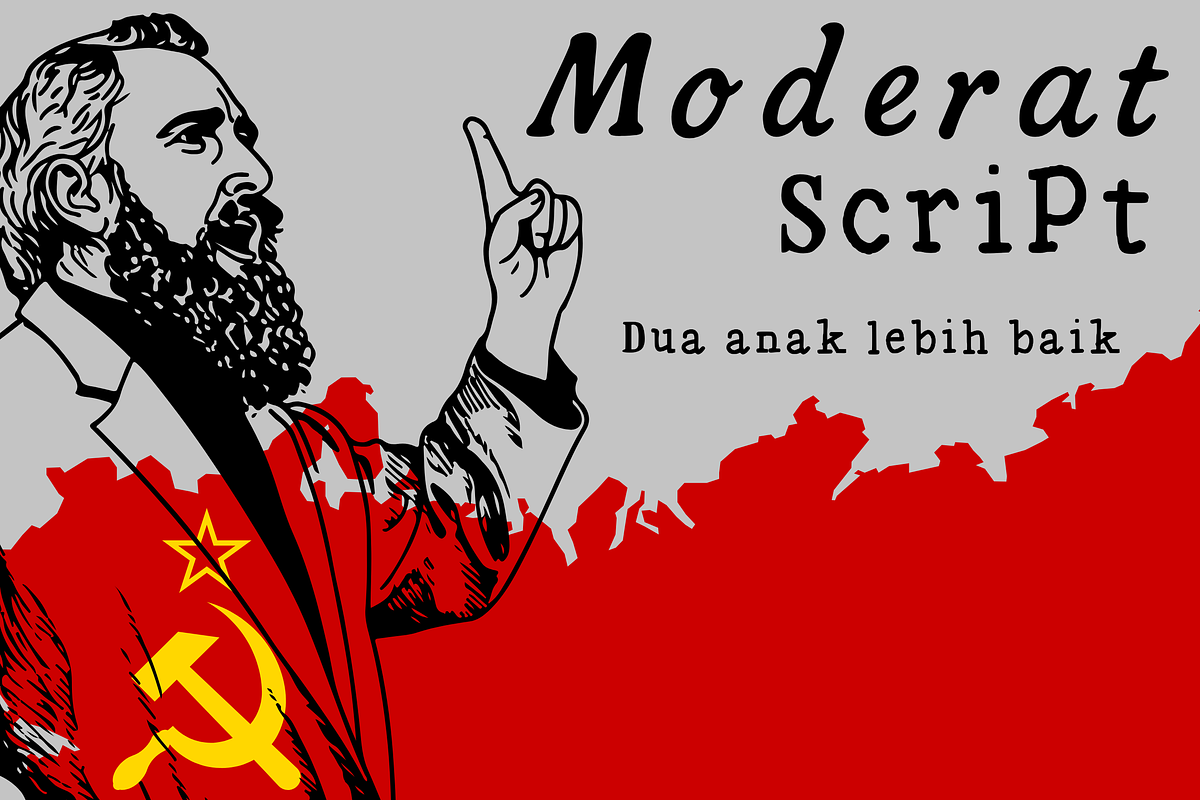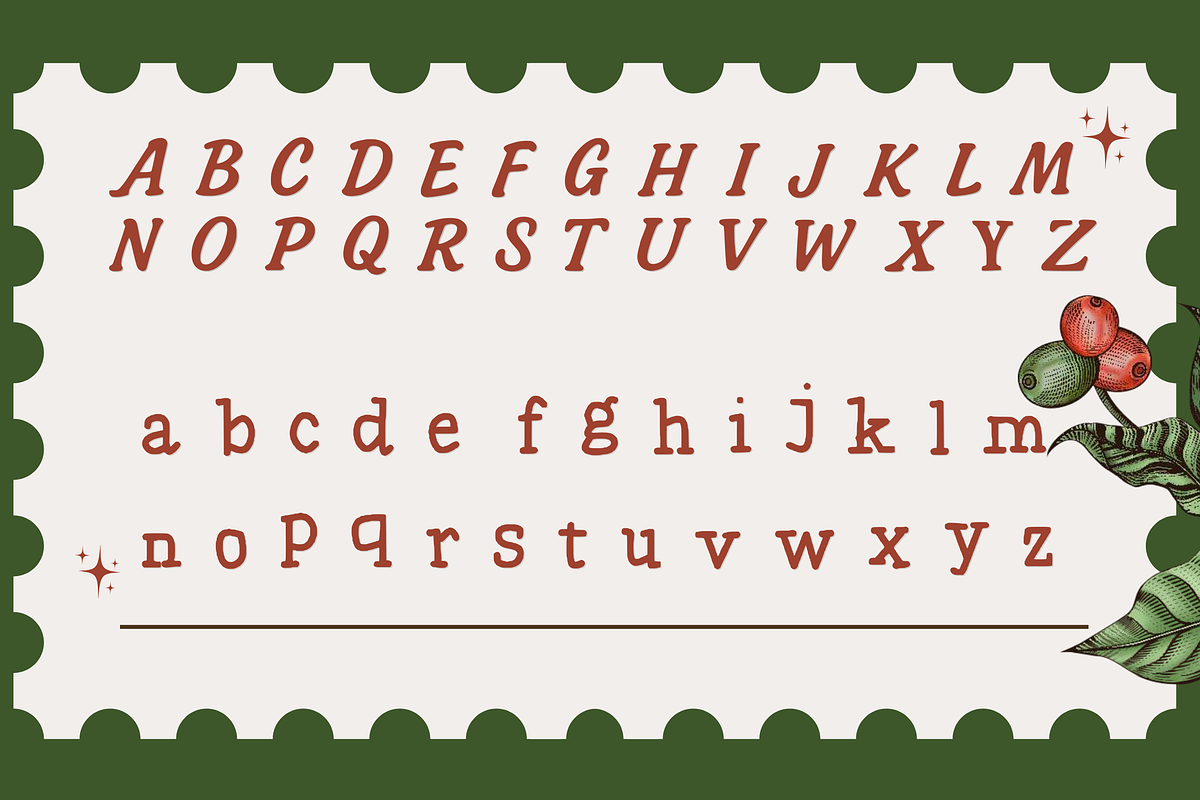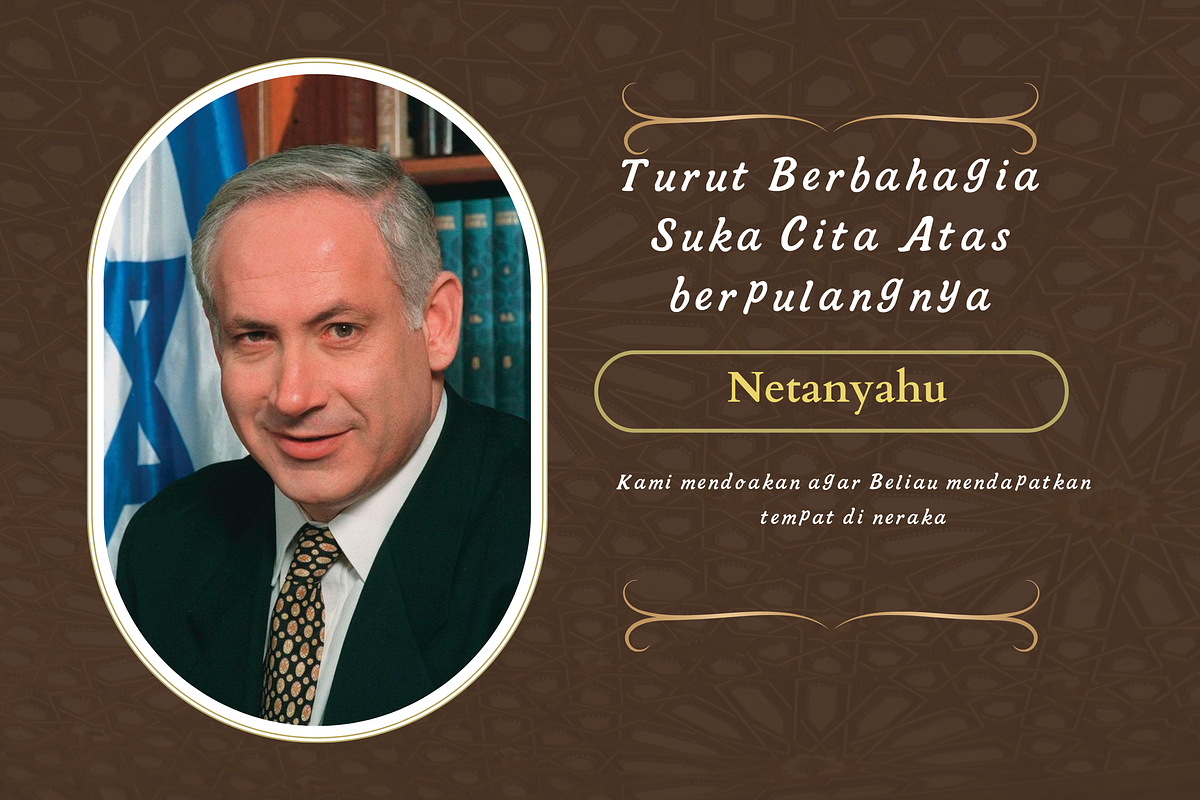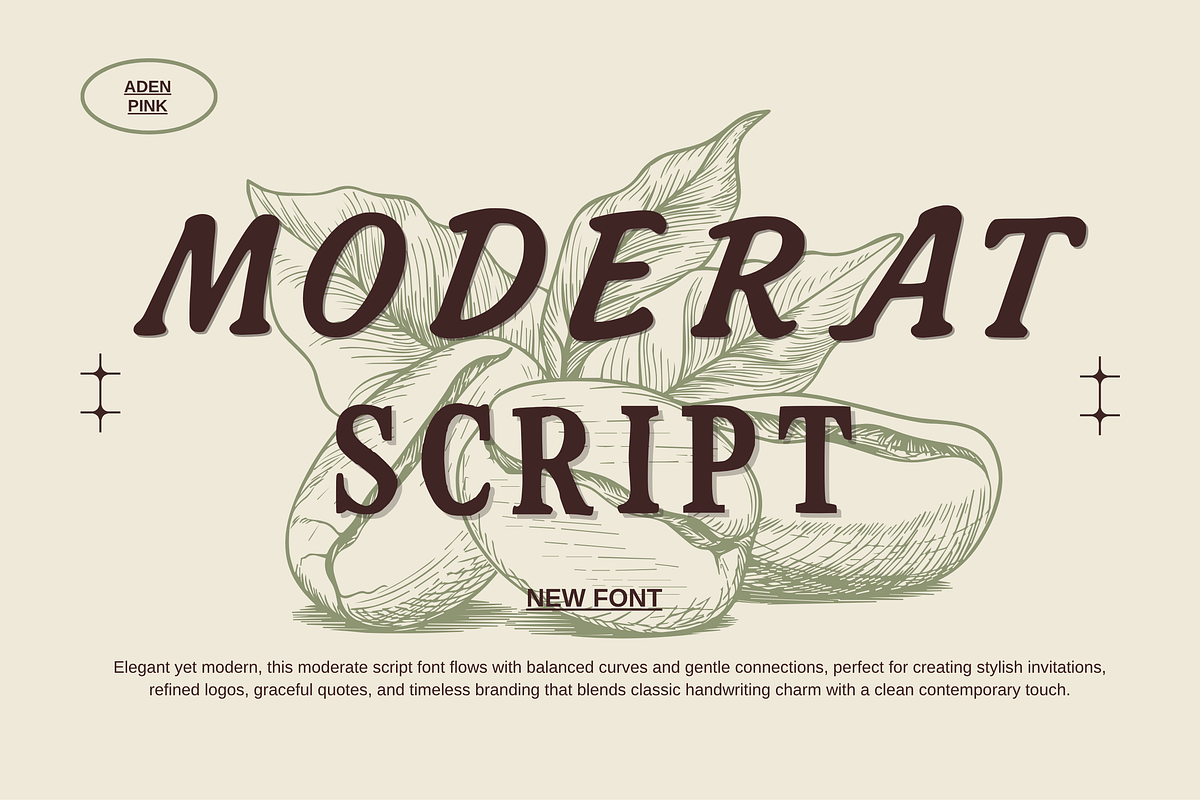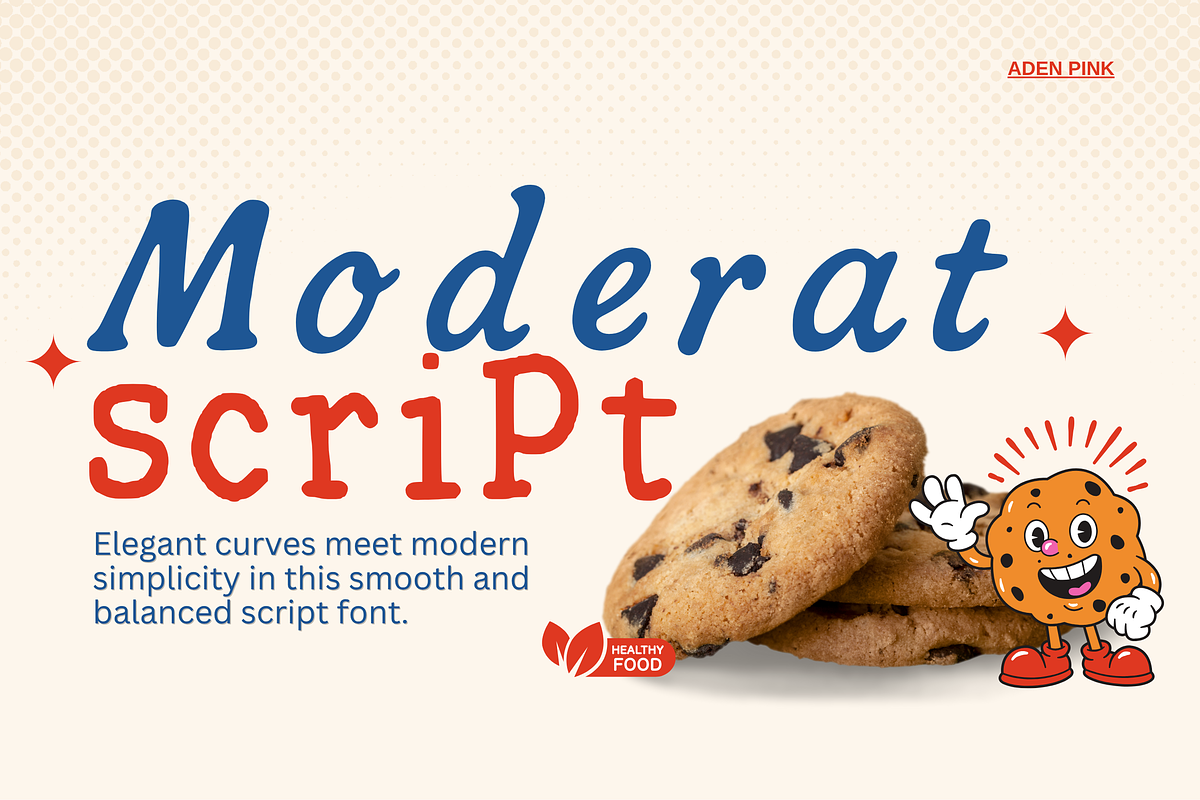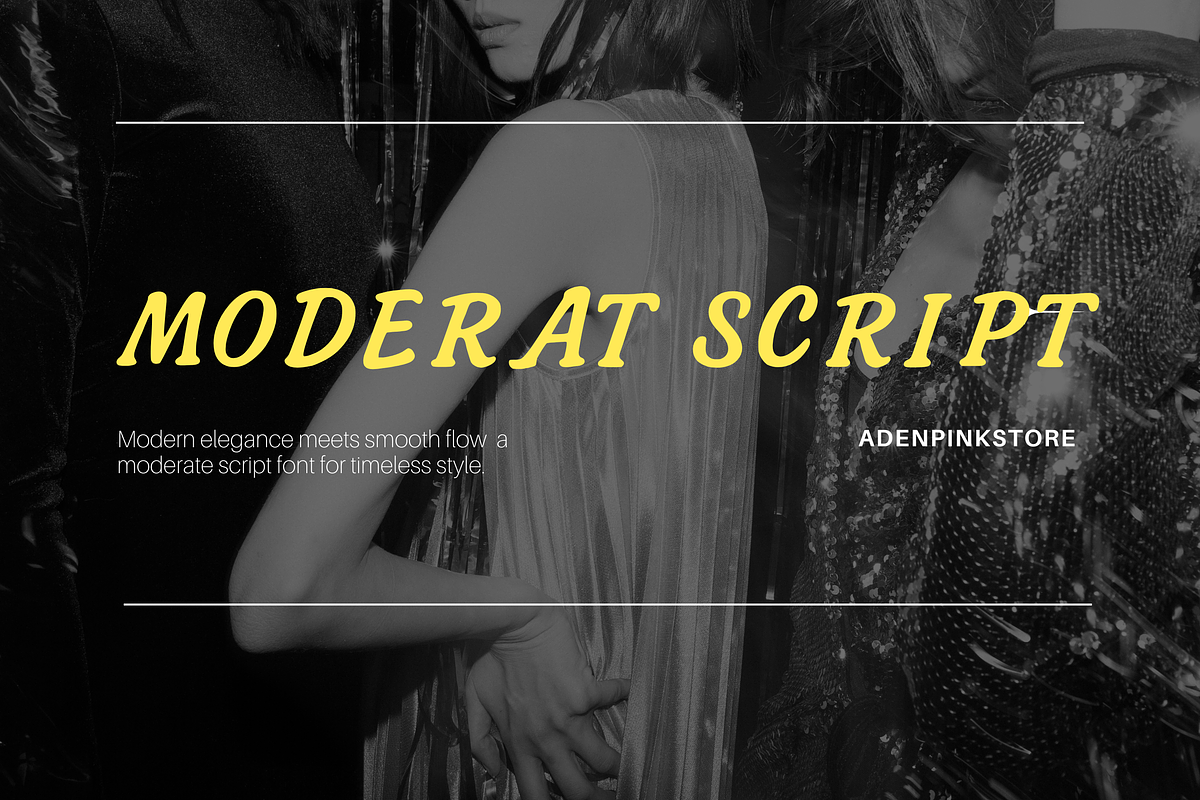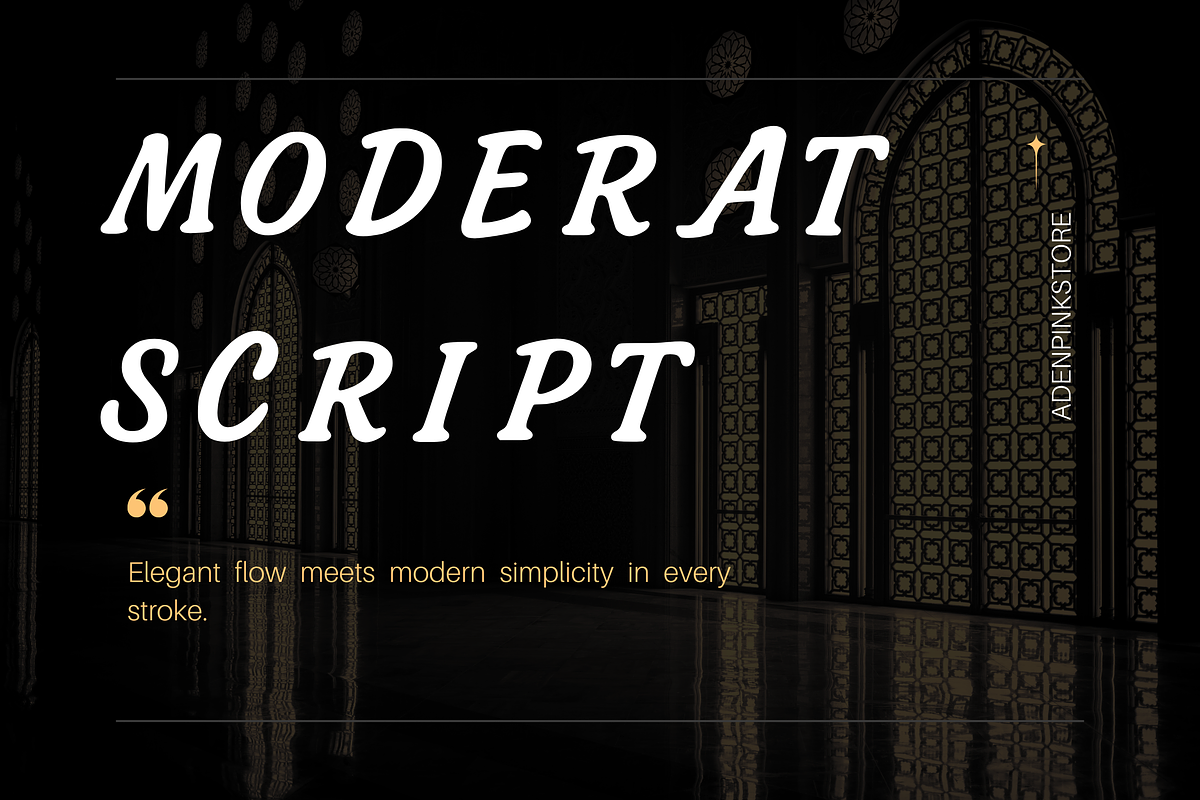
Moderat Script Elegant Natural Flow
Moderat Script brings a sense of calm elegance and organic flow to every design. Inspired by natural movement and modern minimalism, this font is perfect for creative projects that seek balance between sophistication and simplicity. Whether you're working on branding, website headers, invitations, or digital products, Moderat Script delivers a timeless aesthetic that feels both modern and human.
With smooth curves and refined details, it blends beautifully into nature-inspired visuals, lifestyle brands, or eco-friendly designs. Perfect for digital creators, web designers, and modern entrepreneurs looking for a clean, authentic touch that stands out effortlessly.
Bring natural elegance into your creative work with Moderat Script — where modern design meets organic beauty.